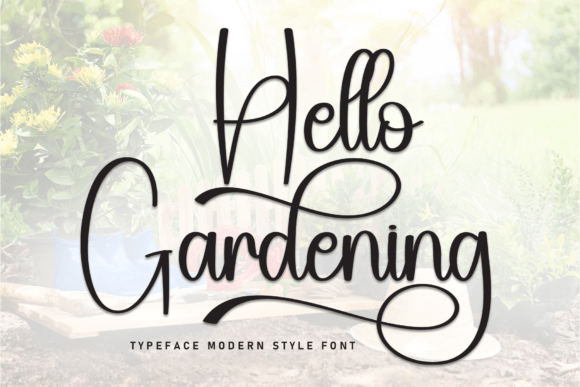
Hello Gardening Font: Elevate Your Crafting Projects with Elegance
In the world of crafting, DIY projects, and creative endeavors, the right font can make all the difference. It can elevate your work from ordinary to extraordinary, adding a touch of personality and style that sets it apart. For those seeking a font that embodies elegance, delicacy, and a touch of whimsy, the Hello Gardening font is an excellent choice. This article will delve into the characteristics, uses, and benefits of the Hello Gardening font, exploring how it can enhance your crafting projects, from letterheads and titles to stationery and beyond.
What is Hello Gardening Font?
Hello Gardening is an elegant and dainty handwritten font, designed to bring a touch of sweetness and delicacy to your projects. It features sweet and delicate swashes, which add a unique flair to the text, making it stand out. The font’s original look is versatile, capable of appealing to a wide range of crafty ideas and creative projects.
Key Features of Hello Gardening Font
- Elegant and Dainty: The font boasts an elegant and dainty appearance, perfect for projects that require a touch of sophistication and delicacy.
- Handwritten Style: Its handwritten nature gives it a personal and intimate feel, making it ideal for stationery, letters, and other craft projects.
- Sweet and Delicate Swashes: The inclusion of sweet and delicate swashes adds a decorative element to the font, enhancing its visual appeal.
- Versatile: The font’s design makes it suitable for a variety of applications, from formal letterheads to creative DIY projects.
Exploring the Uses of Hello Gardening Font
The versatility of the Hello Gardening font makes it an excellent choice for numerous crafting and DIY projects. Here are some of the ways you can utilize this beautiful font:
Project Ideas for Hello Gardening Font
- Letterheads and Titles: Add a professional yet personal touch to your letters and documents with elegant titles and headings.
- Stationery: Elevate your stationery, including greeting cards, invitations, and thank-you notes, with the font’s delicate and elegant style.
- Crafting Projects: From scrapbooking to journaling, the Hello Gardening font can add a unique and personalized element to your crafting projects.
- DIY Signage: Create beautiful and eye-catching signs for your home or business with a touch of elegance.
- Digital and Print Media: Use the font in your digital content, such as blogs and social media posts, or in print materials like brochures and flyers, to stand out.
The Benefits of Using Hello Gardening Font
Incorporating the Hello Gardening font into your projects comes with several benefits:
Advantages of Hello Gardening Font
- Unique Aesthetic: The font provides a unique and distinctive look that can set your projects apart from others.
- Emotional Connection: The delicate and sweet nature of the font can create an emotional connection with your audience, making your projects more impactful.
- Versatility: Its versatility means you can use it across a variety of projects, making it a valuable addition to your font collection.
- Ease of Use: The Hello Gardening font is easy to use, even for those with limited design experience, making it accessible for a wide range of users.
Tips for Using Hello Gardening Font Effectively
To get the most out of the Hello Gardening font, consider the following tips:
Maximizing Impact with Hello Gardening Font
- Pair with Complementary Fonts: Combine the Hello Gardening font with simpler fonts to create contrast and enhance readability.
- Adjust Size and Color: Experiment with different sizes and colors to find the perfect combination for your project.
- Utilize Swashes: Make the most of the font’s swashes by using them to add decorative elements to your text.
- Consider the Context: Ensure the font aligns with the tone and purpose of your project, adjusting as needed for different audiences or mediums.
The Hello Gardening font is a beautiful and versatile addition to any crafting or DIY project. Its elegant and dainty appearance, combined with its sweet and delicate swashes, makes it an excellent choice for those looking to add a touch of sophistication and whimsy to their work. By understanding its features, exploring its uses, and leveraging its benefits, you can elevate your projects and create something truly special.
Embracing Creativity with Hello Gardening Font
In the world of crafting and DIY, creativity knows no bounds. With the Hello Gardening font, you have a tool that can help bring your creative visions to life. Whether you’re working on a letterhead, a crafting project, or digital content, this font offers a unique and elegant solution. So, embrace your creativity, experiment with the Hello Gardening font, and see how it can transform your projects into something extraordinary.